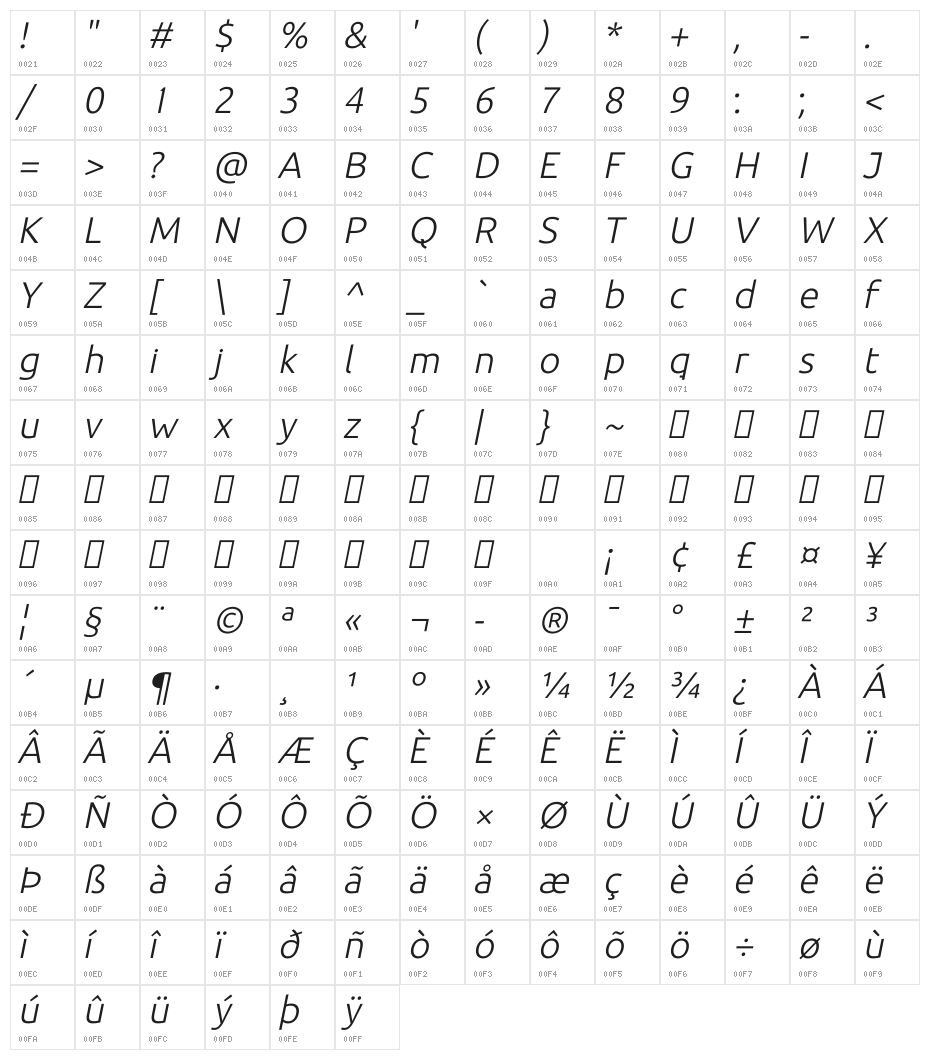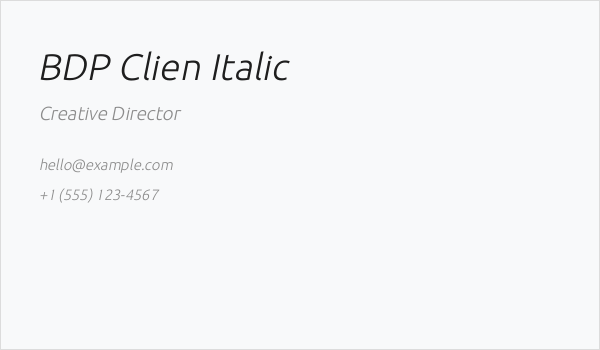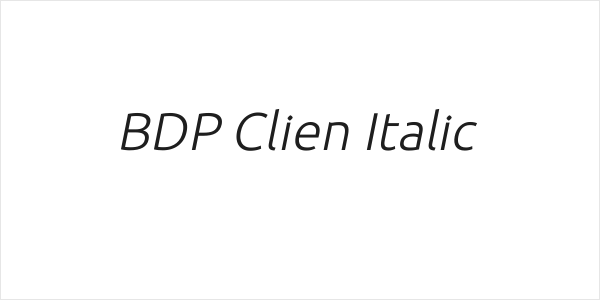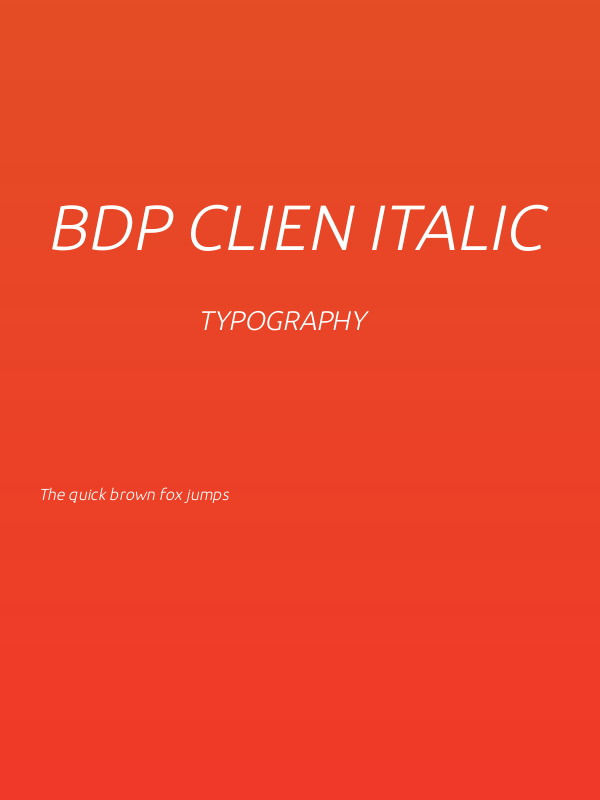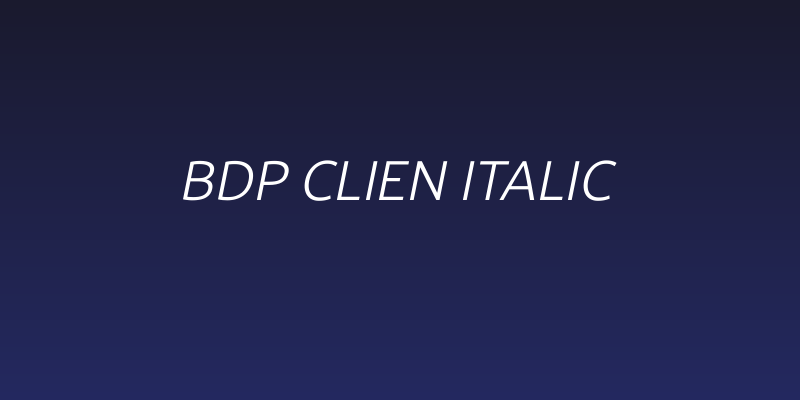
BDP Clien Italic Font
BDP Clien Italic Description
This font features a sleek and modern italic style, characterized by its clean lines and smooth curves. The letters are slightly slanted, giving a sense of motion and elegance. The uppercase and lowercase characters maintain a consistent design, with a uniform stroke width that provides a balanced appearance. The numerals are clear and legible, complementing the overall aesthetic. Special characters are well-integrated, ensuring versatility in various design applications. The font's simplicity and sophistication make it suitable for a wide range of uses.